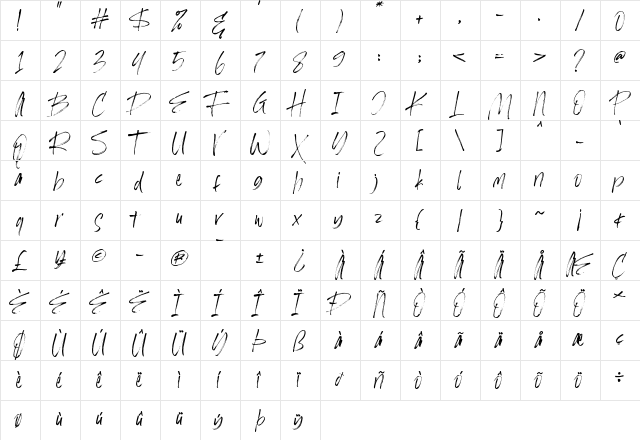
Hi Morgane Demo Regular
| Designer | Sabrcreative Studio |
Design Context for Hi Morgane Demo Typeface
Hi Morgane Demo is a composed and adaptable typeface that performs quietly and consistently across a wide range of design contexts.